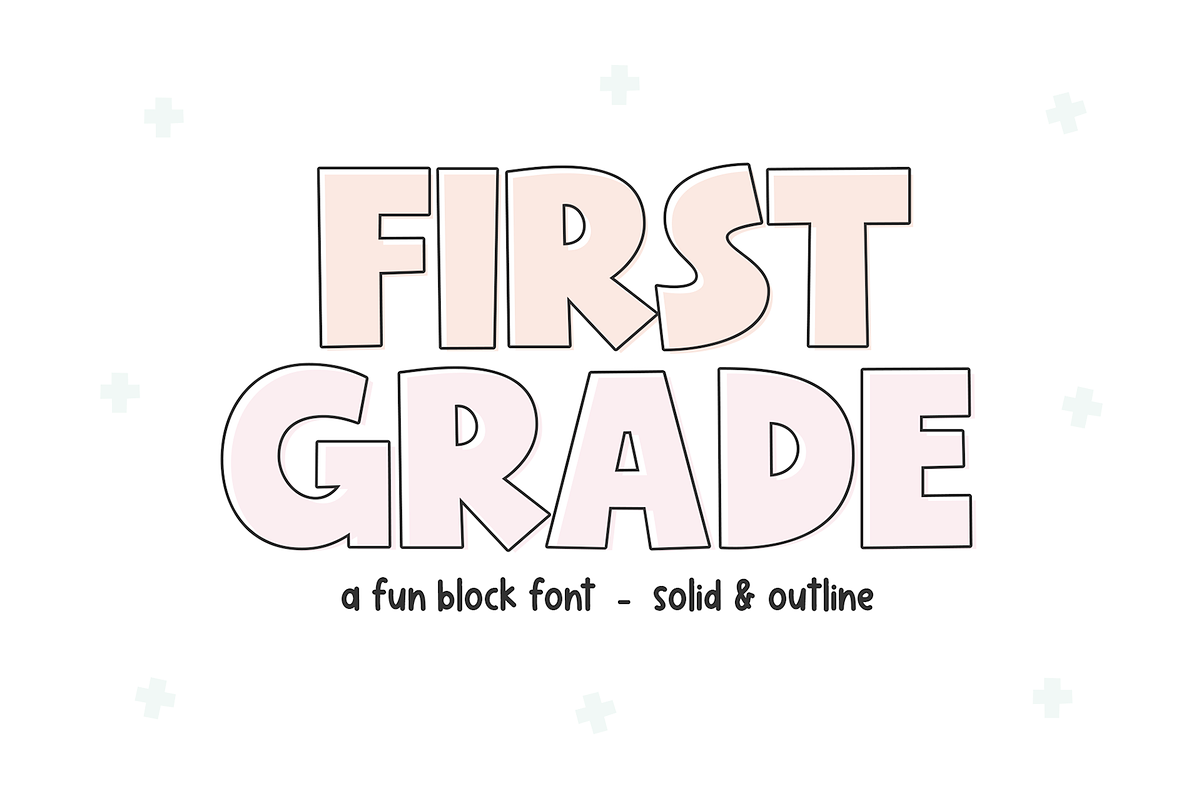
First Grade | Fun Block Font Free Download
First Grade | Fun Block Font Free Download is a cheerful and chunky typeface designed to bring joy, clarity, and creativity to kid-focused designs. With its bold block letters and playful structure, this font is perfect for educational materials, school posters, children’s books, classroom decor, and fun learning activities.
Easy to read and full of character, First Grade combines functionality with a lighthearted vibe—making it a favorite for teachers, parents, and designers creating kid-friendly content. Its simplicity and charm work well for both print and digital formats.
Add playful learning power to your designs with the bold and friendly feel of First Grade!